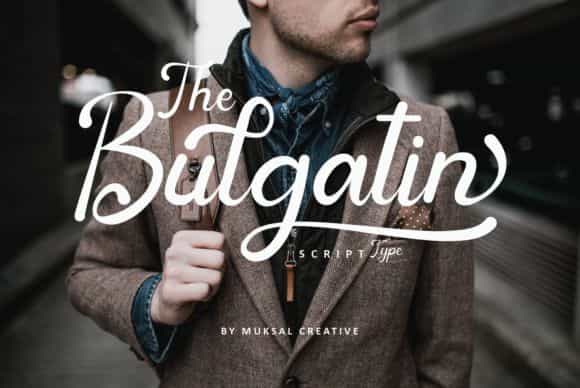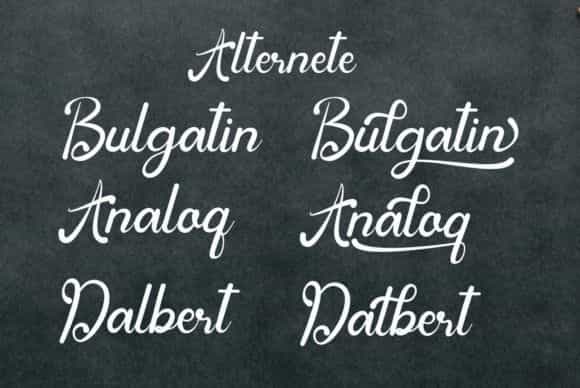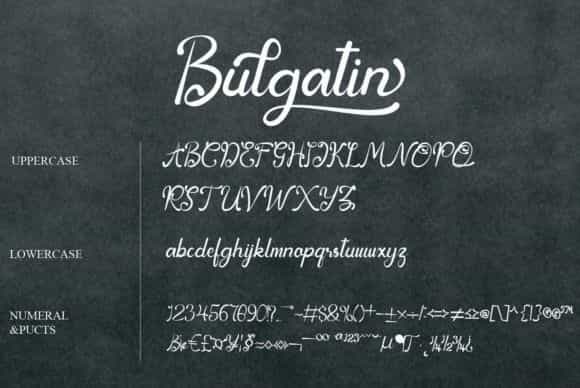
Bulgatin is as charming and elegant at the same time. It will take a lot of design projects to the top level, be it branding, headings, wedding designs, invitations, signatures logos labels and so on!